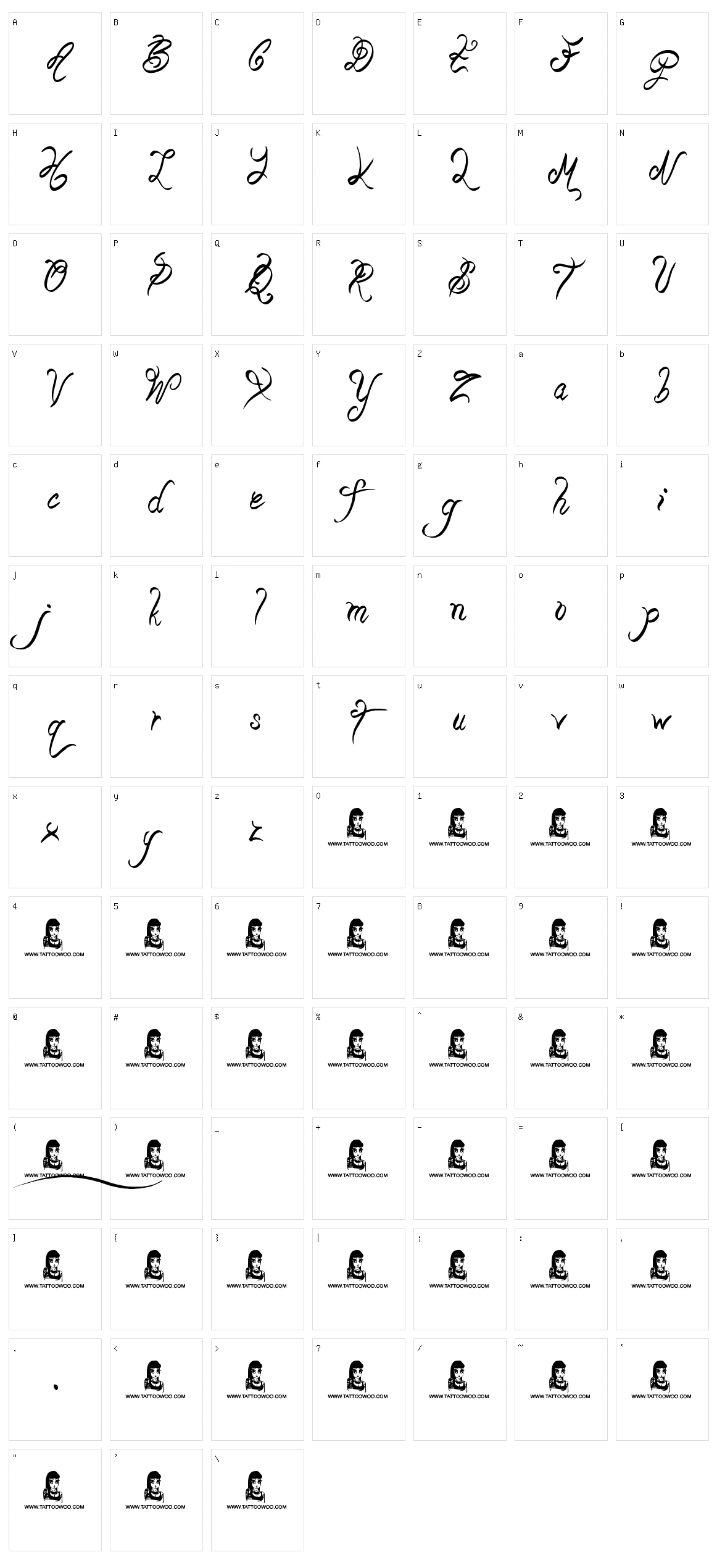
The free font Beauty Pagent is carefully designed by JSH creates, showcasing a thoughtful balance of creativity and usability and falls under the Script font style. When you download the ZIP file, it contains only 314.11 KB of font files, making it lightweight and quick to download. Please review the license details below to understand permitted usage and distribution rights. If license information is not available, we recommend using this font for personal projects only or contacting the author directly for commercial usage permissions.